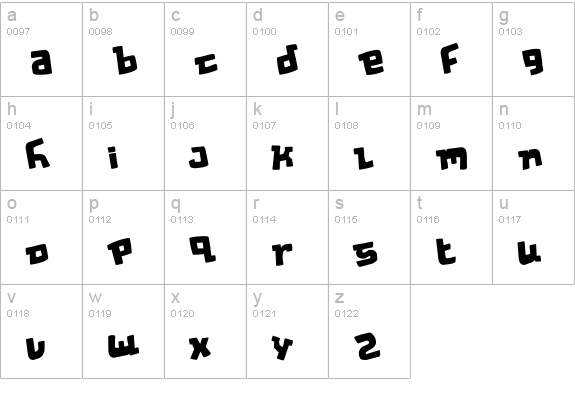
WackeySpankers Font Details
Introducing WackeySpankers, a whimsical and playful font that is sure to add a touch of fun to any project! With its unique and quirky letterforms, this font is perfect for adding a lighthearted and energetic vibe to your designs. Designed with a free-spirited mindset, WackeySpankers is all about breaking the rules and embracing creativity. Each letter is carefully crafted with exaggerated strokes and bouncy curves, giving it a truly distinctive and eye-catching appearance. Whether you're working on a poster, a logo, or even a social media post, this font will surely grab attention and bring a smile to anyone's face. What's even better is that WackeySpankers is freely available to download at FontsMarket.com. Yes, you read that right - this font won't cost you a penny! We believe that creativity should be accessible to all, and that's why we're offering this font completely free of charge. So go ahead and unleash your imagination with WackeySpankers - the possibilities are endless! But don't let the playful nature of this font fool you - it's also highly versatile. Its clean and legible design ensures that it can be used for a variety of purposes, from title headers to body text. And with a wide range of uppercase and lowercase characters, as well as punctuation and numerals, you'll have all the tools you need to bring your ideas to life. So why wait? Dive into the world of WackeySpankers and let your creativity run wild. Download this font for free at FontsMarket.com and get ready to add a touch of whimsy and joy to your designs. Remember, with WackeySpankers, the fun never ends!